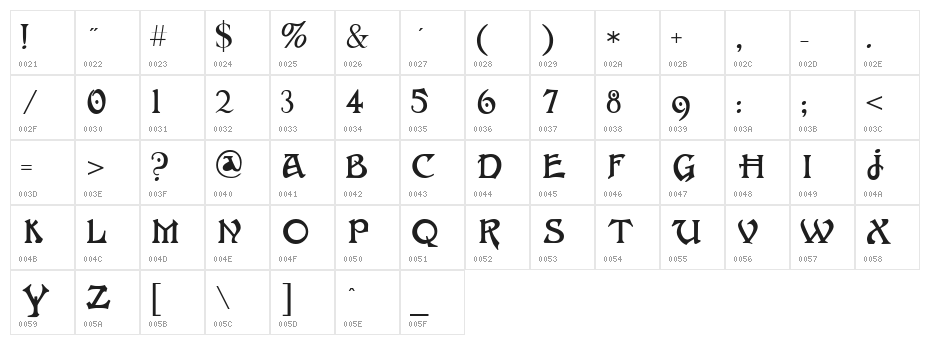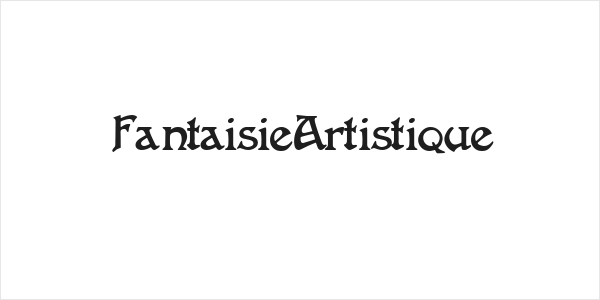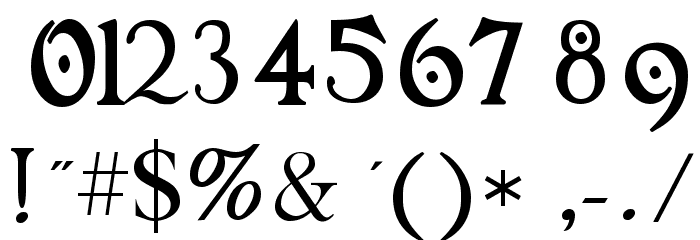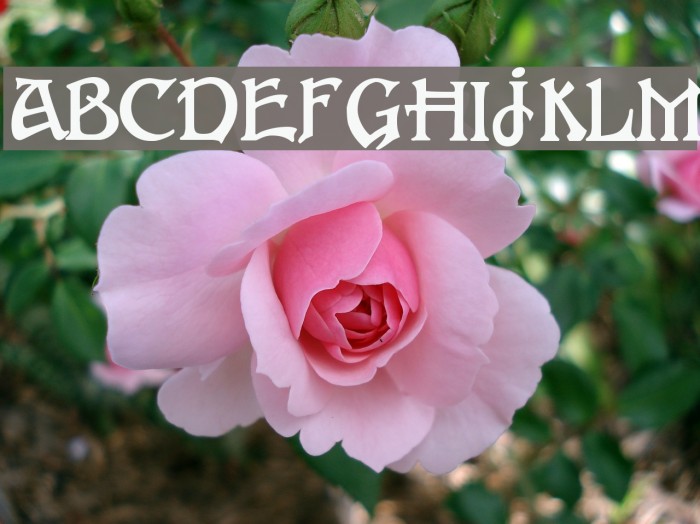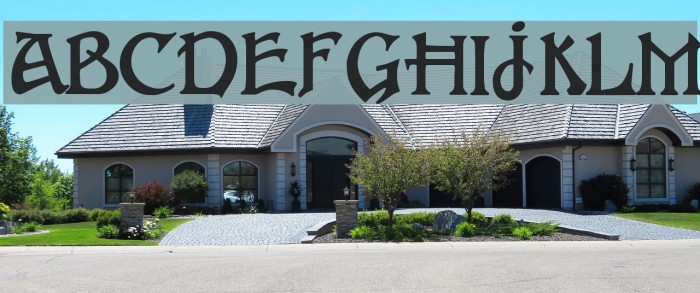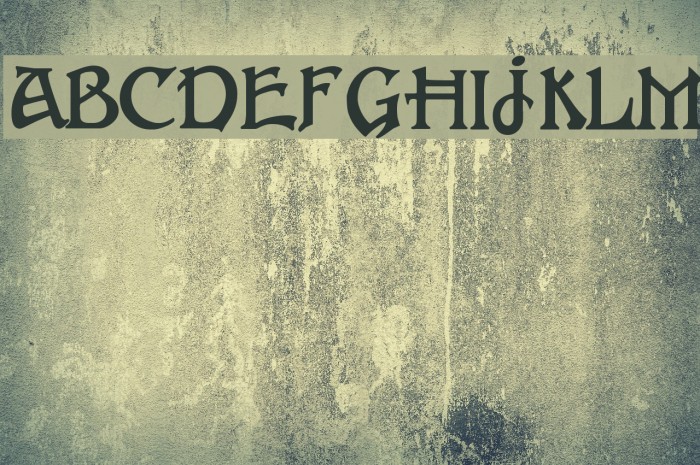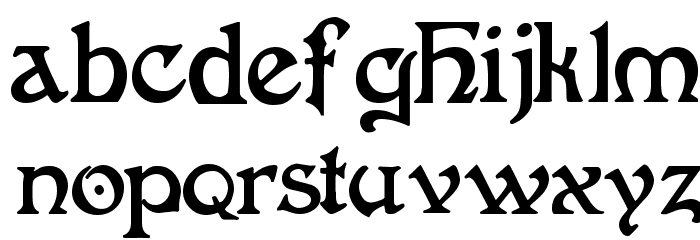
FantaisieArtistique Font
FantaisieArtistique Description
This font exudes a whimsical and artistic flair, characterized by its unique and playful letterforms. Each character is crafted with a sense of movement and creativity, featuring exaggerated curves and decorative elements that give it a distinct personality. The uppercase letters are bold and dynamic, with varying stroke widths that add to the font's lively appearance. The lowercase letters maintain this playful style, with some characters having unexpected flourishes and angles. The numerals are equally expressive, with a consistent style that matches the alphabet. Special characters are designed with the same artistic touch, making this font suitable for creative and decorative purposes.
| Use Case | Headlines, Logos, Artistic projects |
| Proposed Projects | Ideal for creative projects such as posters, invitations, and artistic branding that require a unique and expressive typeface. |